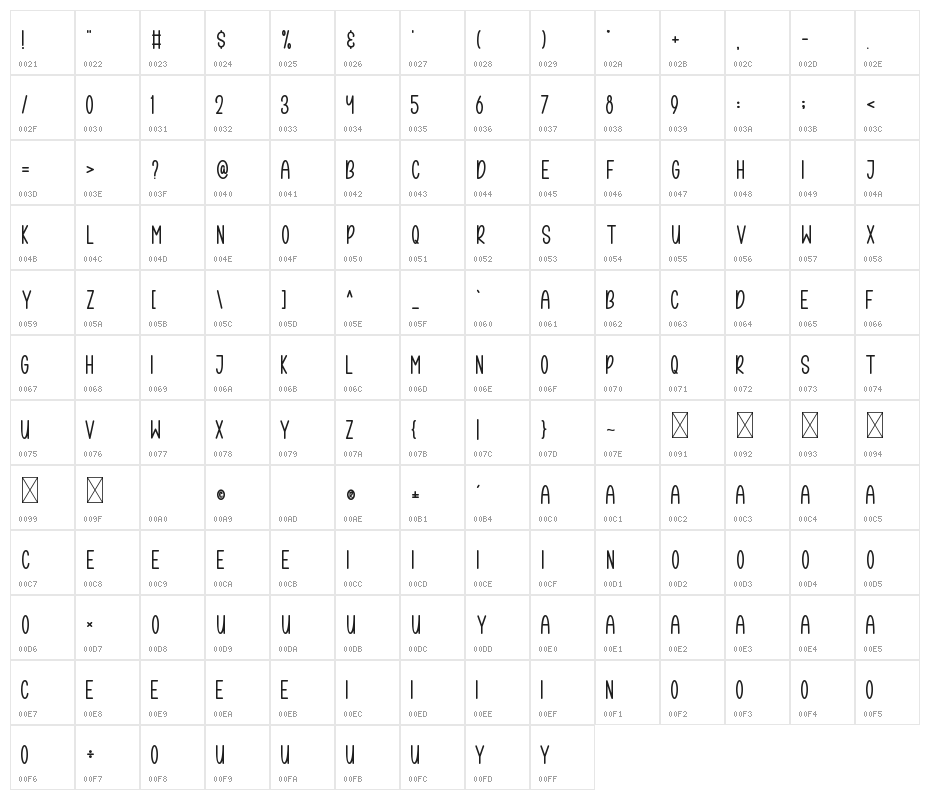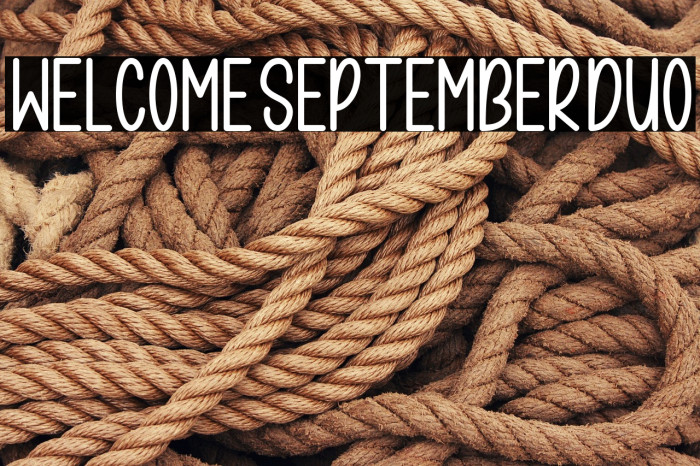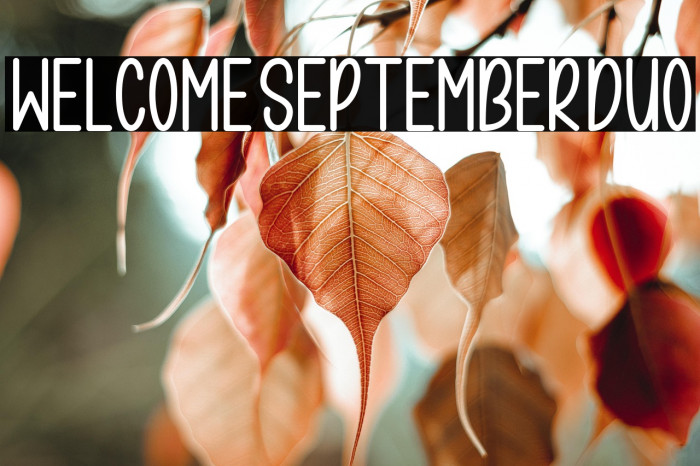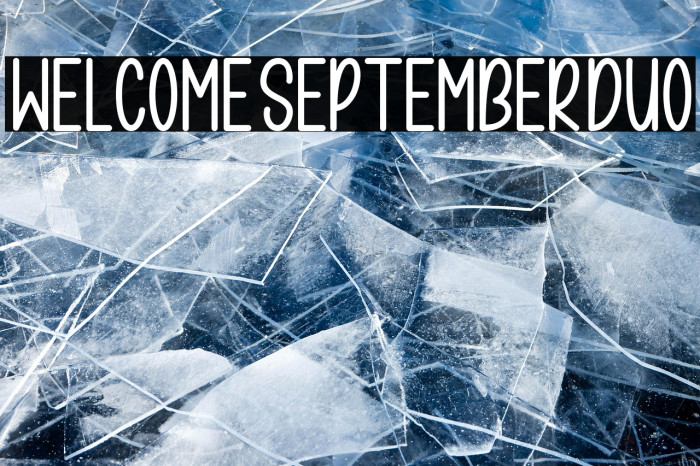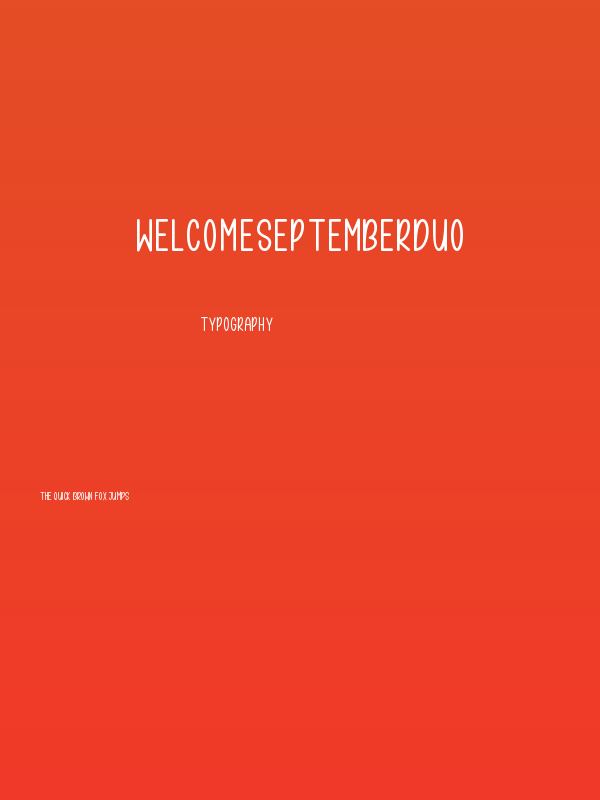
WelcomeSeptemberDuo Font
WelcomeSeptemberDuo Description
This font features a playful and rounded design, characterized by its smooth curves and friendly appearance. The uppercase and lowercase letters maintain a consistent style, with a slightly whimsical touch that adds charm and approachability. The numerals and special characters are designed to match the overall aesthetic, ensuring a cohesive look across all text elements. The font's simplicity and readability make it versatile for various applications, while its unique style adds a touch of personality.
| Overall Style | Playful |
| Use Case | Headlines, Logos, Informal Text |
| Proposed Projects | Ideal for children's books, playful branding, greeting cards, and casual invitations. |